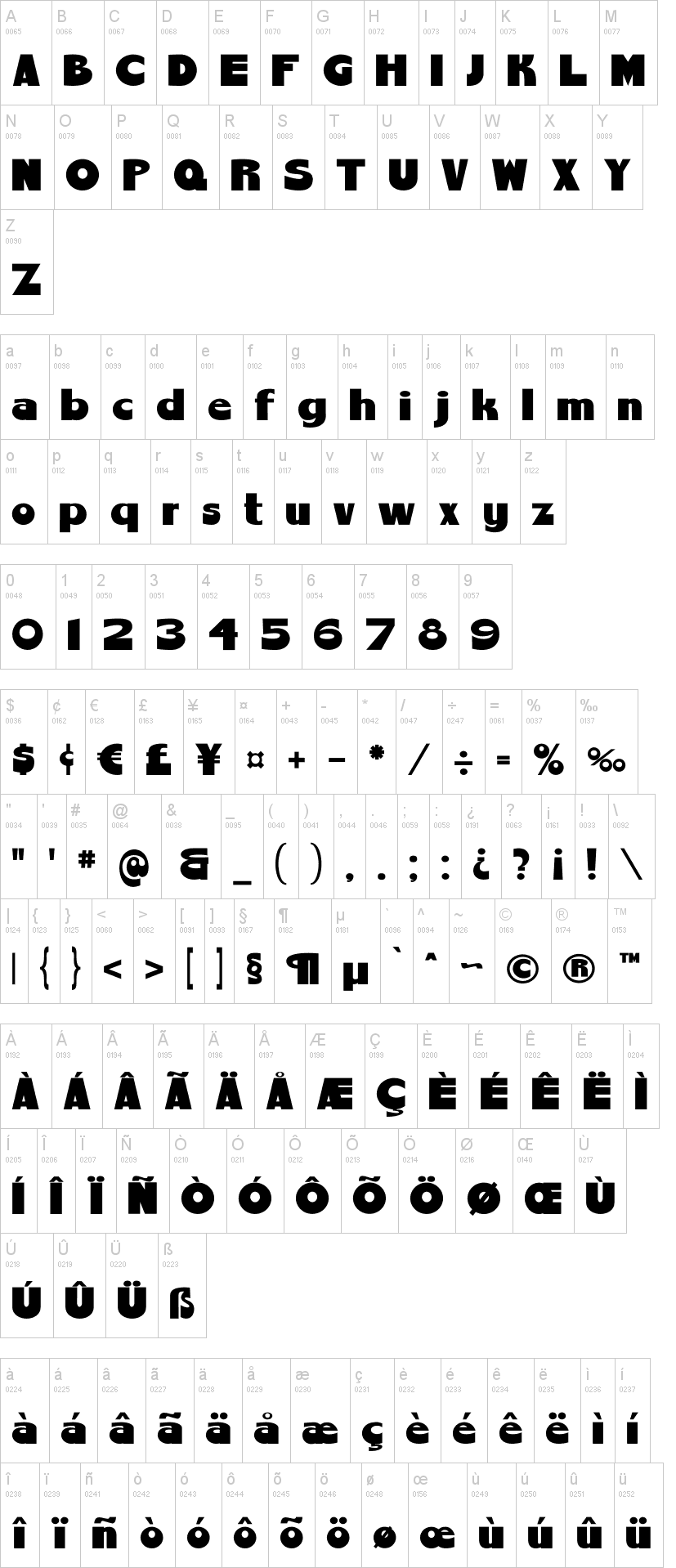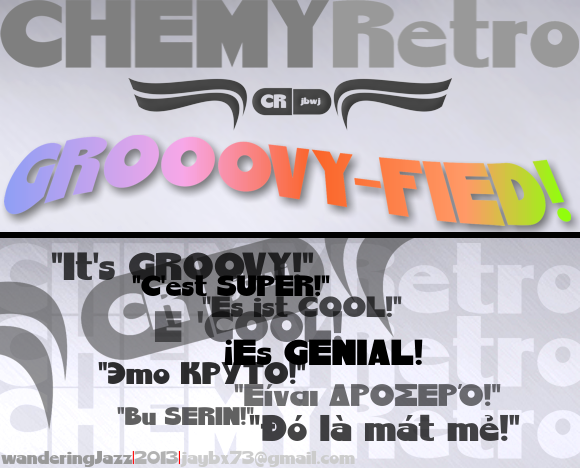
Note of the authorA new groooovy 60s/70s font I created from scratch. I want to share my creations to the font/art community. Credit is fine, but not essential. I like to see what you do with them.